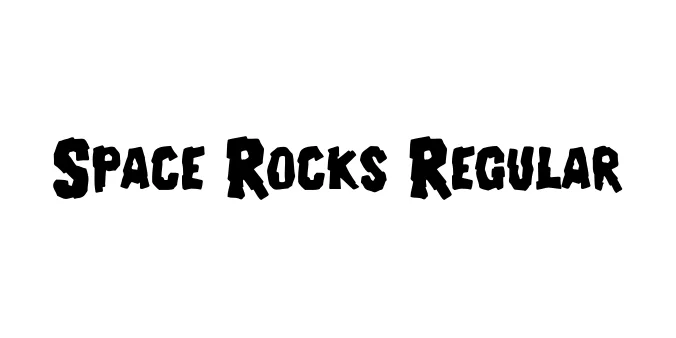
Space Rocks Regular
Designed by Chequered Ink
Space Rocks Regular is a bold, geometric display font designed by the creative team at Chequered Ink. It features a rugged, blocky aesthetic that evokes the feeling of celestial bodies and futuristic construction, making it a standout choice for high-impact visual projects. The design leans heavily into a utilitarian and industrial look, often associated with deep-space exploration themes and lunar landscapes.
Originally released to cater to the sci-fi and gaming communities, this typeface utilizes heavy strokes and sharp angles to command attention. It is particularly effective for large-scale displays and headlines, ensuring readability while maintaining a strong thematic presence. Whether used for digital interfaces or physical print, Space Rocks Regular provides a sense of durability and modern sophistication suitable for the 21st century and beyond.
Space Rocks Regular Best Uses
Ideal for title screens and heads-up displays in space-themed or cyberpunk video games.
A strong choice for high-impact movie posters and futuristic event flyers.
Perfect for technology or engineering firms looking for a sturdy, modern logo identity.
Works exceptionally well for graphic t-shirts and streetwear with an industrial aesthetic.